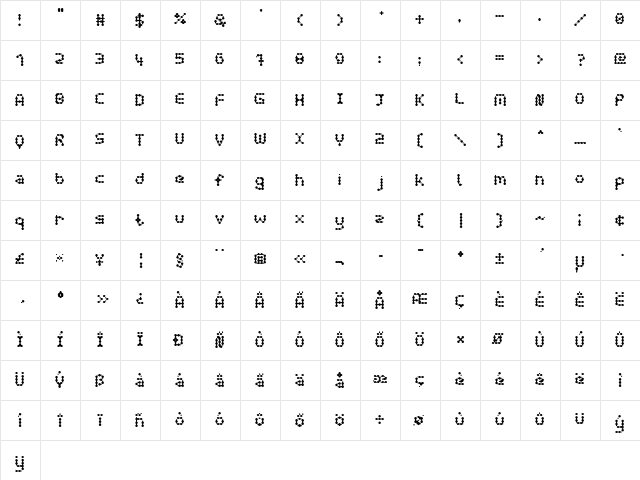
curly lava bubble Regular
| Foundry | Manuel Viergutz |
| Designer | Manuel Viergutz |
Design Context for curly lava bubble Typeface
curly lava bubble has an approachable, lighthearted character — its loose, expressive forms are well-suited to children's content, casual branding, and fun-first design.
Font Pairing: Pairs well with a rounded or humanist sans for body copy, maintaining the friendly tone without relying on curly lava bubble to carry extended reading.
Pro Tip: Use curly lava bubble at larger display sizes where its expressive character can land. Pair with a clean, simple sans for body copy to maintain readability.